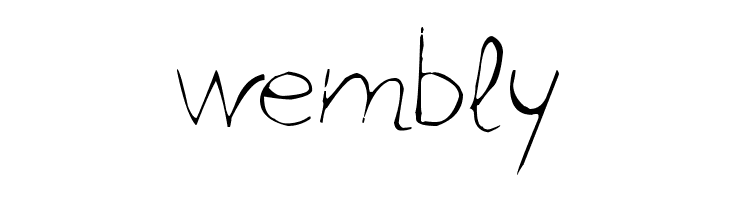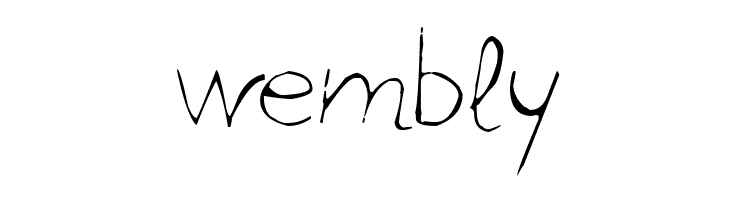
A whimsical handwritten font with playful, irregular strokes and creative decorative elements.
A whimsical, playful handwritten font with unique decorative elements.